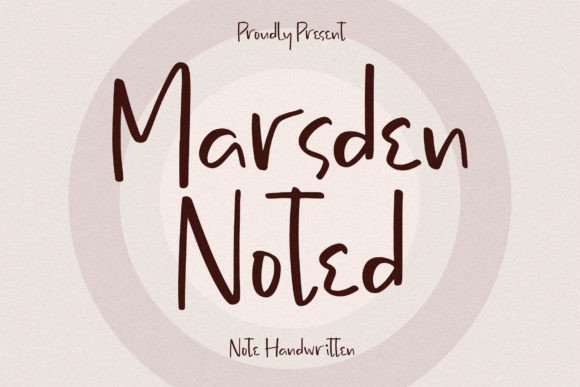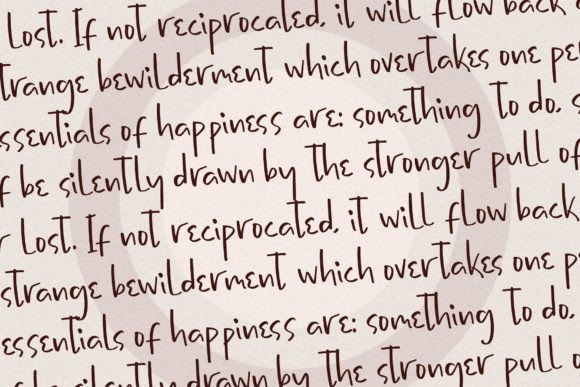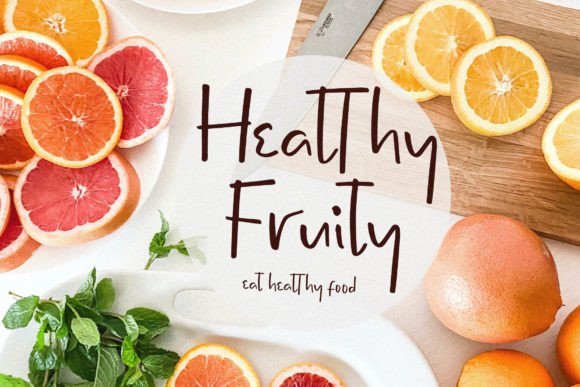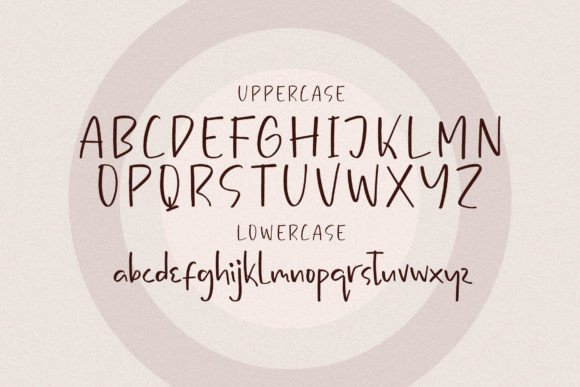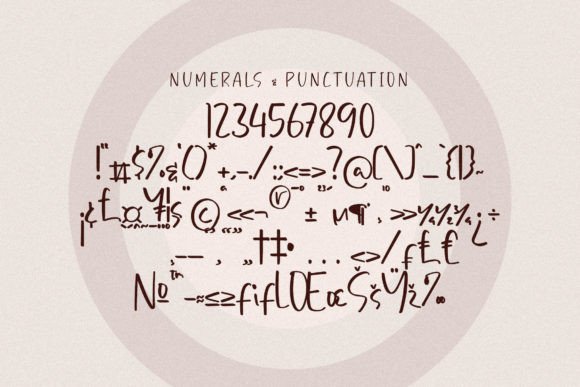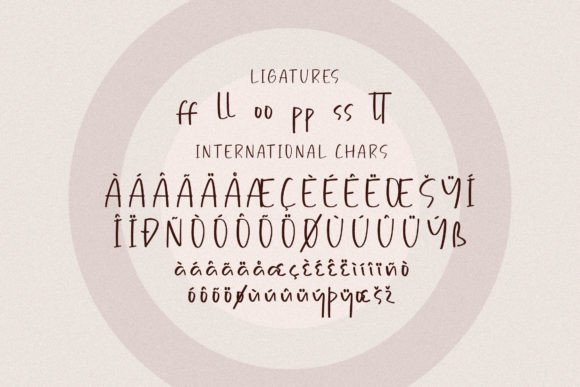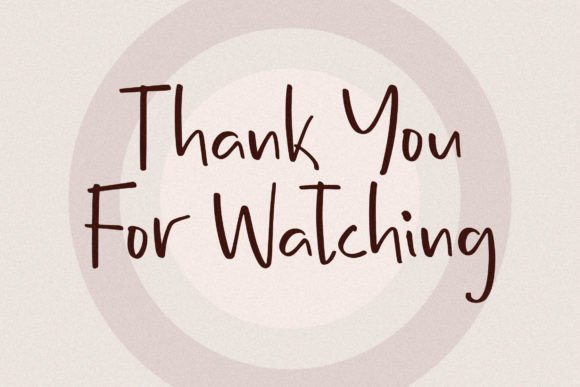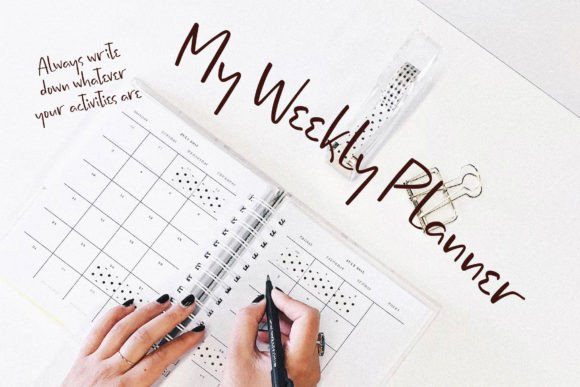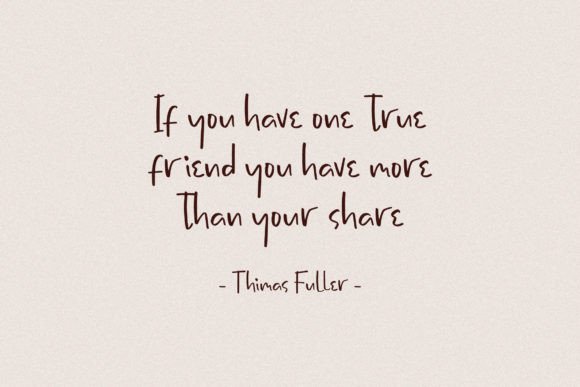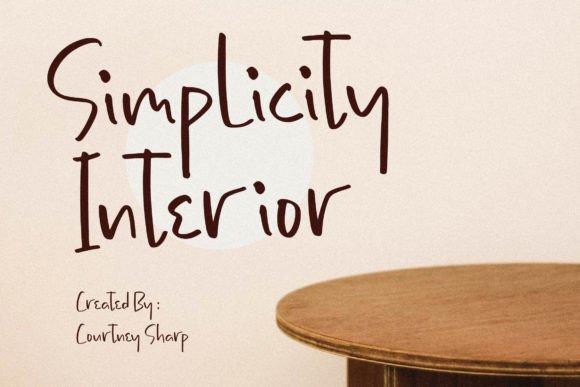
Marsden Noted Font
Marsden Noted Font: Charming Script for Versatile Designs
“Marsden Noted” is a beautiful handwritten font that adds a stylish script taste to various creative projects. It’s perfect for logos, branding, and much more.
Key Features of Marsden Noted Font
• Versatile Style: Marsden Noted adapts well to different design needs.
• Elegant Look: Adds beauty and sophistication to your work.
• Authentic Feel: Conveys a sense of personalization and timelessness.
Marsden Noted’s elegant style is ideal for creating memorable logo designs and branding materials that convey authenticity.
Stationery and Invitations
Use Marsden Noted to design beautiful wedding invitations, greeting cards, and other special event materials.
Product Packaging and Labels
The font’s charming look makes it perfect for creating eye-catching product packaging and labels that stand out on shelves.
Why Choose Marsden Noted Font?
Marsden Noted offers more than just beautiful letters. Here’s why it stands out:
• Enhances overall aesthetics of your projects
• Creates a harmonious and captivating atmosphere
• Adapts well to various design themes
By using Marsden Noted, you open up new design possibilities. Its versatile style works well in many contexts, from book covers to t-shirt designs. The font’s ability to convey elegance can inspire creative ideas and help you approach projects from a fresh perspective.
Marsden Noted in Digital Design
In the digital realm, Marsden Noted excels in creating engaging website headers and social media graphics. Its handwritten style can help capture attention and increase engagement on various online platforms.
If you’re looking for a font that combines versatility with elegance, Marsden Noted is an excellent choice. It’s perfect for adding a touch of authenticity to your work, especially for projects that need a personal yet sophisticated feel.
Explore how Marsden Noted can transform your designs. From branding projects to special event materials, this font brings a timeless and elegant quality to your creations.